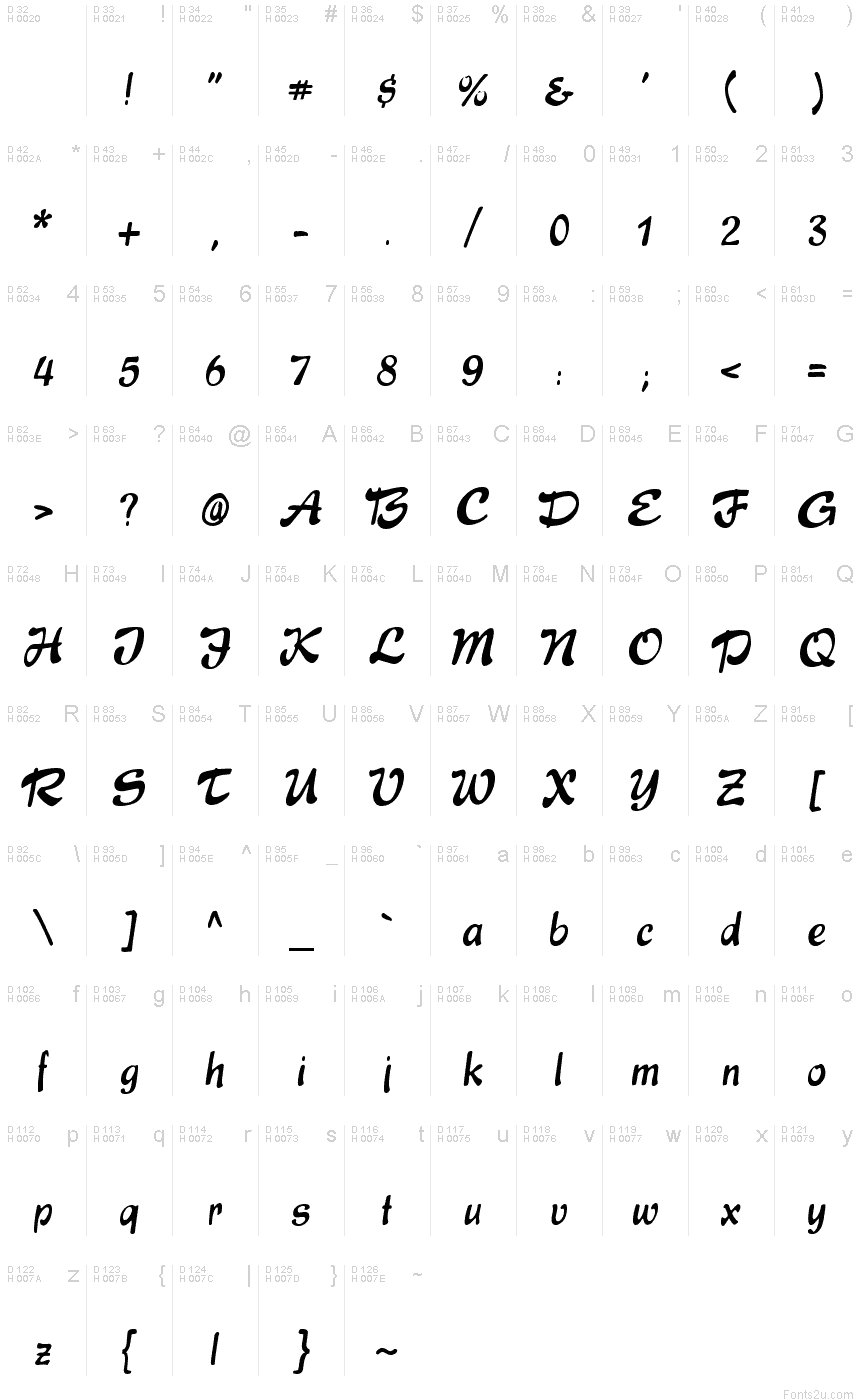
Podgląd czcionki Express
Express by D. Steffmann of Typographer Mediengestaltung is a free brush script with broad, rolling strokes and a distinctly hand-painted swing. The letters change thickness sharply through each curve. Rounded forms and lively joins keep the writing informal and quick.
Food and drink branding is its strongest setting, especially for cafe logos and packaging that should resemble lettering painted directly onto a sign. Its looping brush shapes also suit music posters and casual event graphics, where the repeated curves can echo illustrated flourishes, ribbons, or hand-drawn borders.